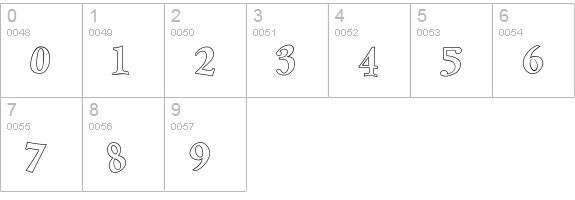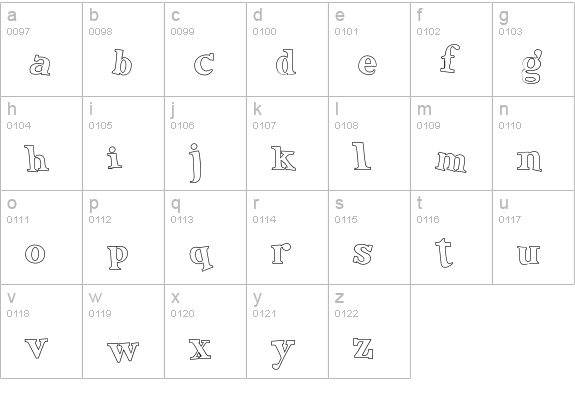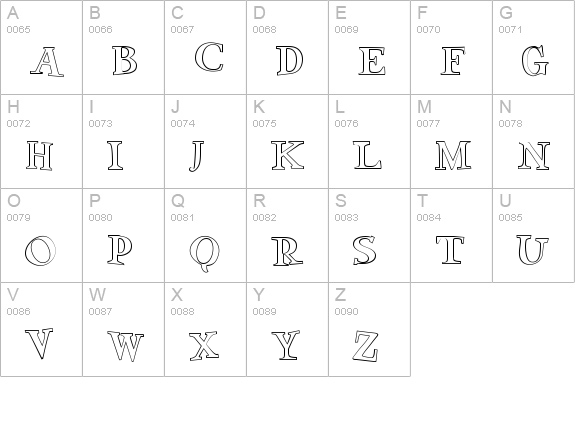
Green Eggs and Spam Outline Font Details
Green Eggs and Spam Outline font is a visually stunning typeface that will surely catch the eye of any design enthusiast. With its unique and intricate outline design, this font adds a touch of modernity and creativity to any project. The letters are delicately crafted, featuring clean lines and sharp edges that give it a contemporary feel. This font is perfect for a wide range of design applications, including logos, headers, posters, and more. Its versatility allows it to be used in both digital and print projects, making it a go-to choice for graphic designers and typographers alike. One of the best things about Green Eggs and Spam Outline font is that it is freely available to download at FontsMarket.com. This means that you can get your hands on this amazing font without having to spend a dime. Whether you're a professional designer or a hobbyist, having access to high-quality fonts like this one can greatly enhance your creative projects. Not only is Green Eggs and Spam Outline font free, but it also comes with a wide range of characters and glyphs, allowing you to create unique and captivating designs. It supports different languages, making it accessible to designers from all over the world. So why wait? Visit FontsMarket.com today and download the Green Eggs and Spam Outline font for free. Elevate your design game with this remarkable typeface and let your creativity shine.